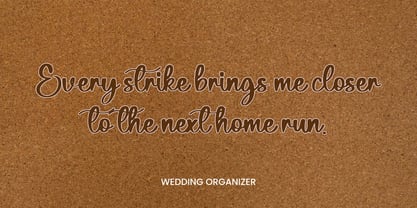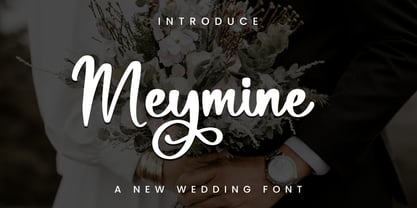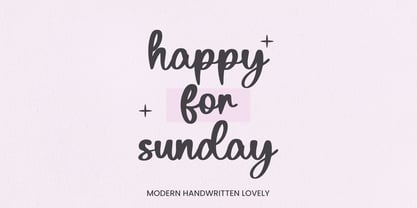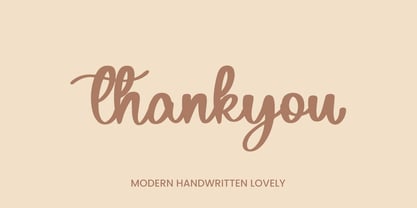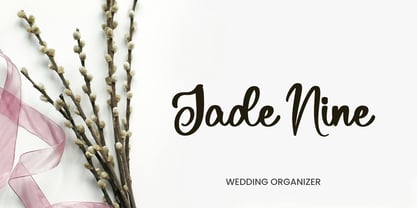
Meymine
Die Schriftfamilie Meymine wurde von entworfen und von Chatype Studio veröffentlicht. Meymine enthält 1 Stile. Mehr über diese Familie
Meymine font with a new style, this font will be suitable for various projects such as quotes, logos, blog headers, posters, ribbons, fashion, clothing, letters, invitations, stationery, etc...